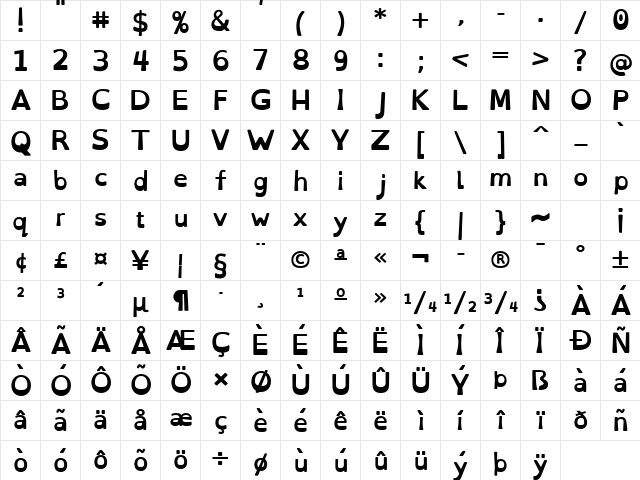
OpenDyslexic3 Bold
| Designer | Abelardo Gonzalez |
Design Context for OpenDyslexic3 Typeface
OpenDyslexic3 takes a measured approach to typography — its balanced proportions and neutral character make it a reliable workhorse for both digital and print work. Its bold stroke weight gives it real presence on the page.